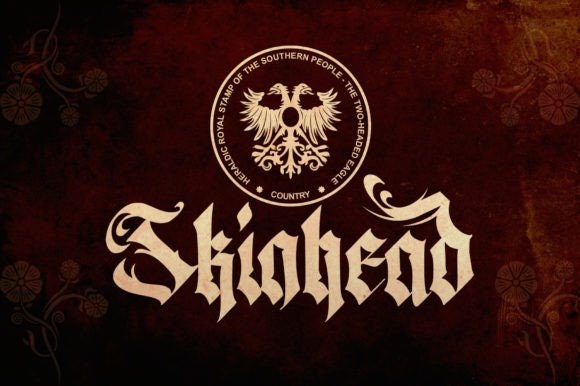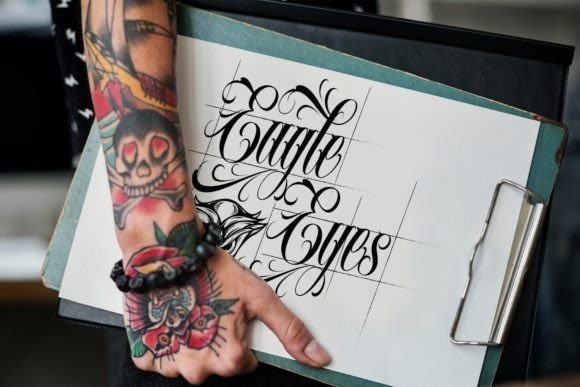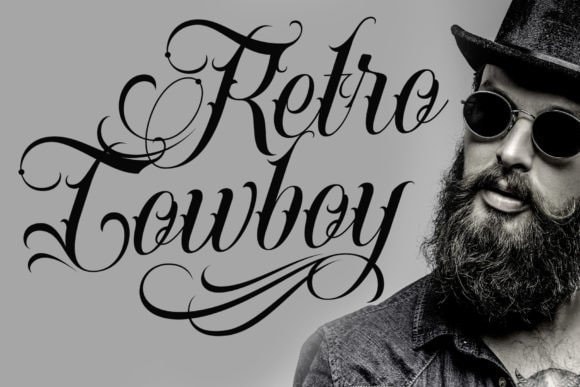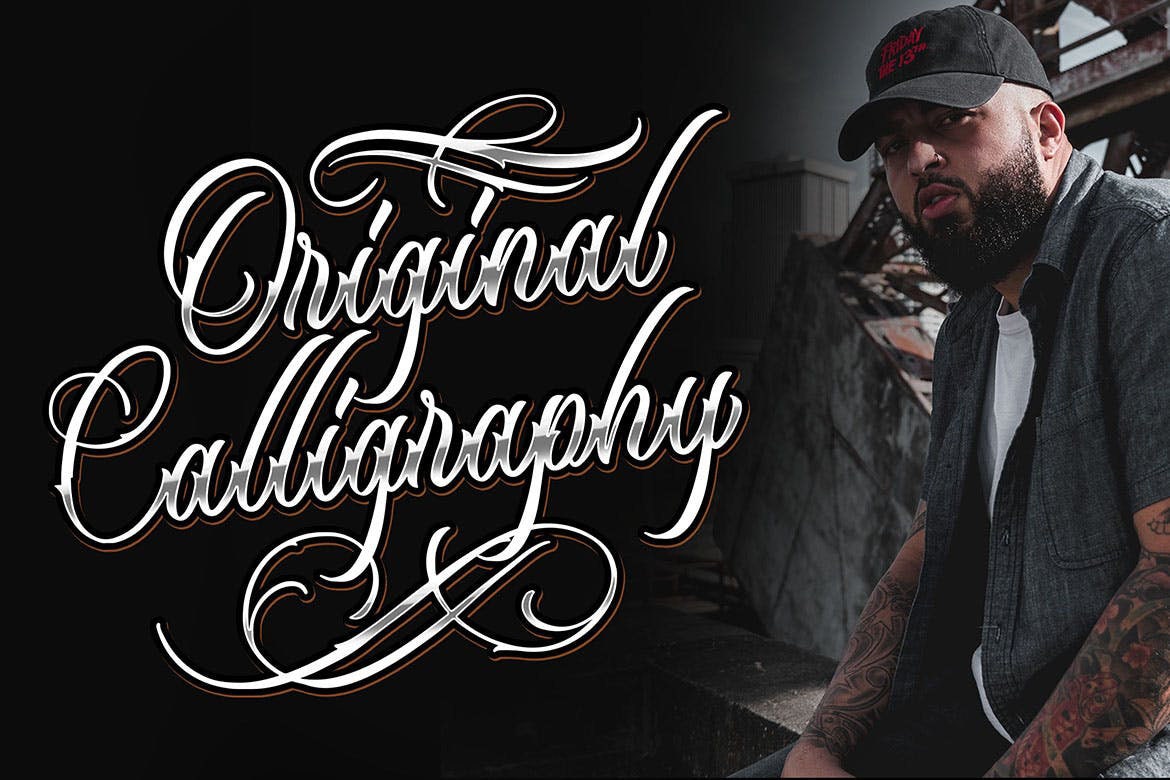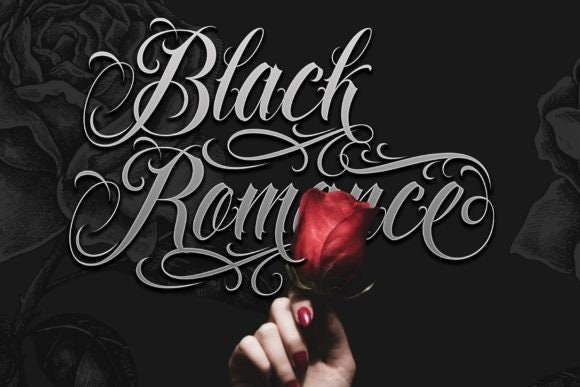
40 Premium Tattoo Fonts Bundle 6 – Gothic Blackletter & Calligraphy for Procreate, Photoshop, Logos, Cricut
Unleash bold, professional typography with the 40 Premium Tattoo Fonts Bundle 6—an expertly curated collection of Gothic Blackletter and elegant Calligraphy fonts designed for tattoo artists, brand creators, and digital makers. Whether you’re crafting tattoo flash, logos, apparel graphics, album art, signage, or social content, this bundle delivers the striking letterforms you need to stand out with confidence.
Why creators love this bundle:
- 40 professionally curated tattoo fonts blending gothic blackletter and refined calligraphy
- OpenType features, ligatures, swashes, punctuation, and multilingual characters